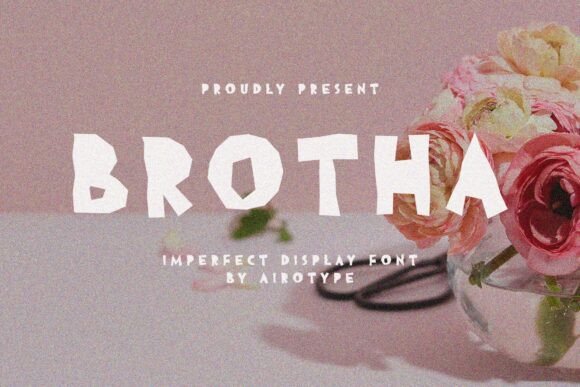
The Brotha Font: A Playful and Expressive Display Font for Creative Designs
Have you ever been in the middle of a design project, and suddenly, you just can’t seem to find the right font? I recall a particularly frustrating experience while working on a kids’ branding project. My client wanted a font that was playful, yet edgy, and I just couldn’t seem to find the perfect fit. That’s when I stumbled upon the Brotha font, and it completely transformed my design.
What is Brotha Font?
Brotha is an imperfect display font with sharp edges and asymmetric shapes. The messy characters enhance the playful and freedom vibes, making it perfect for designs that require a casual, cute, and creative touch. The unregular pattern of this font absolutely embraces the charming, expressive, and creative touch into the design.
• ✨ Unique and playful character set that adds a touch of personality to any design
• ✅ Easy to read and understand, even in smaller sizes
• ✅ Supports OpenType features, glyphs, and stylistic alternates for added versatility
• ✅ Perfect for designs with a casual, cute, and freedom theme
• ⚠️ May not be suitable for formal or professional designs due to its playful nature
• 🤔 Some characters may appear a bit distorted or irregular, which can be a deliberate design choice or a limitation
The Story Behind Brotha Font
Brotha font was designed with the intention of creating a playful and expressive display font that captures the essence of creativity and freedom. The designer aimed to create a font that would add a touch of personality to any design, while also being easy to read and understand.
Q: What is the best way to use Brotha font?
A: Brotha font is best used for designs that require a casual, cute, and creative touch, such as kids’ designs, creative branding, graphic design, t-shirts, posters, and tumblers.
Q: Is Brotha font suitable for body text?
A: Brotha font is best used as a display font, and may not be suitable for body text due to its playful and imperfect nature.